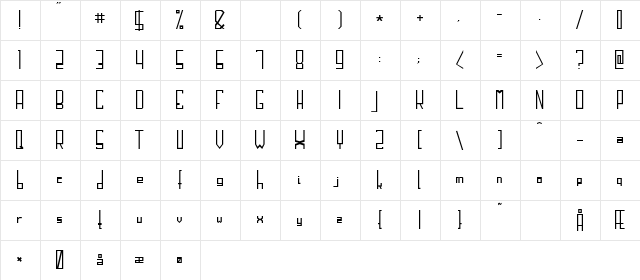
HiBlok Light
Design Context for HiBlok Typeface
HiBlok is a composed and adaptable typeface that performs quietly and consistently across a wide range of design contexts. The delicate stroke weight brings airiness and refinement to layouts.